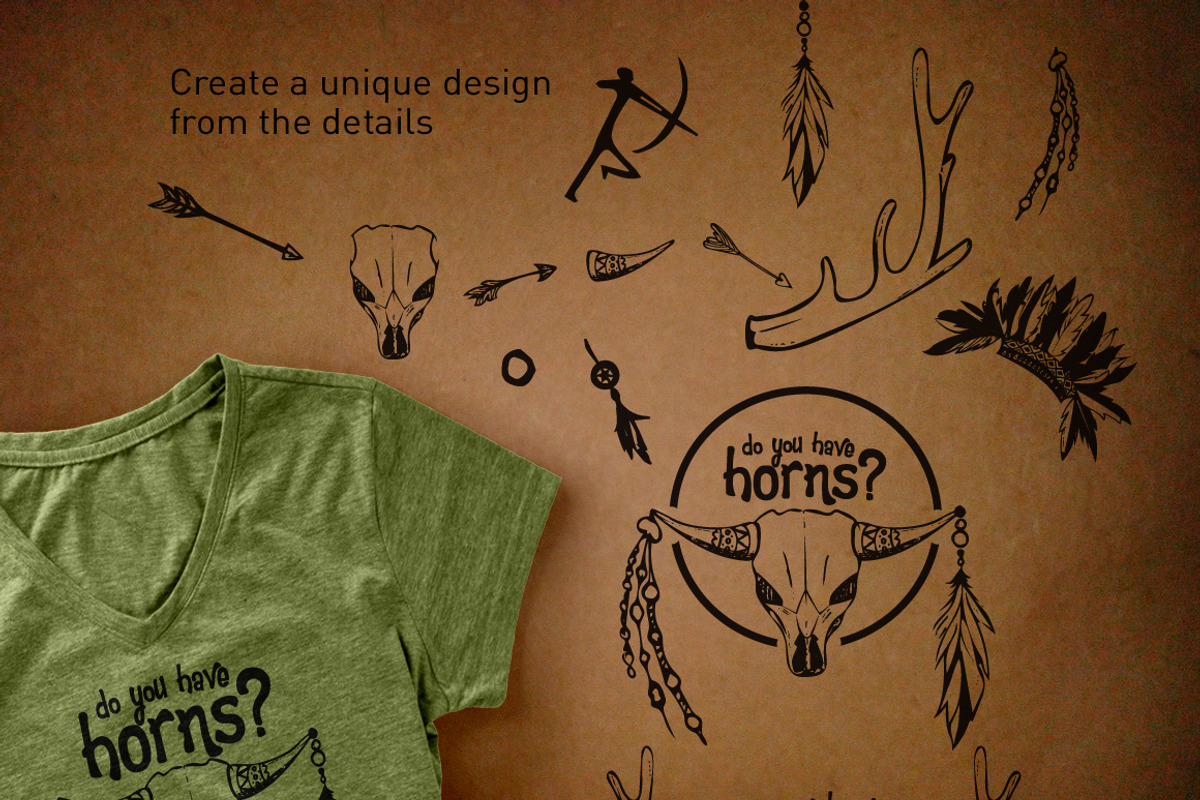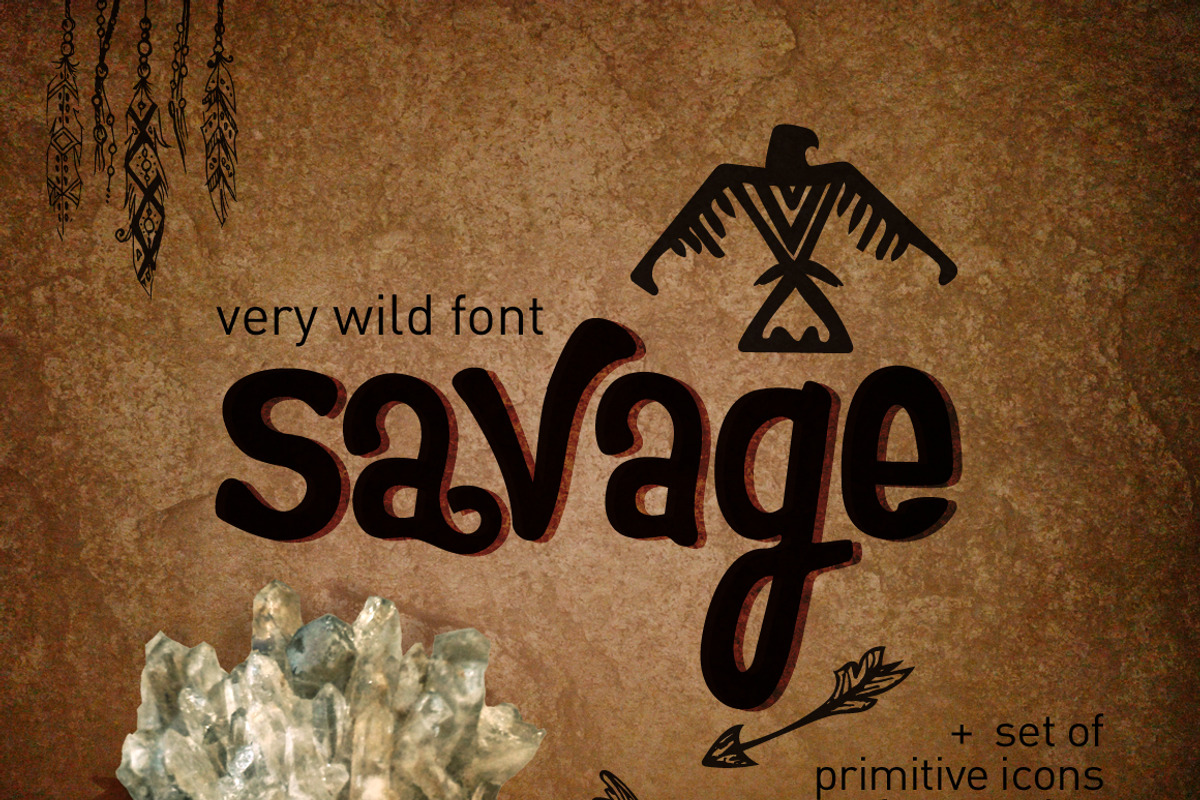
Wild font Savage
Wild font Savage Description
With pleasure I present a new font filled with primitive energy - Savage. The font is made under the impression of my personal acquaintance with the Indians. Font in combination with icons is excellent for creating an ethnic corporate identity, logo, invitation to an ethnic party or something else. Also included in the set are pictures in the zentangle technique that you can use for tattoos, applying to a fabric or you can simply print and paint. It's relaxing;-) Also included in the set are the logos used in the preview and you can use them :)
Wild font Savage by Oldy fits naturally into Branding, posters, packaging, typography.